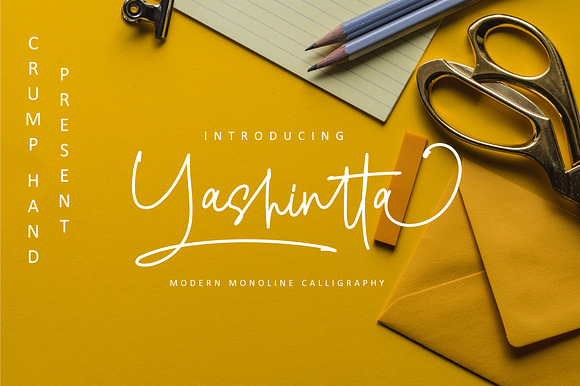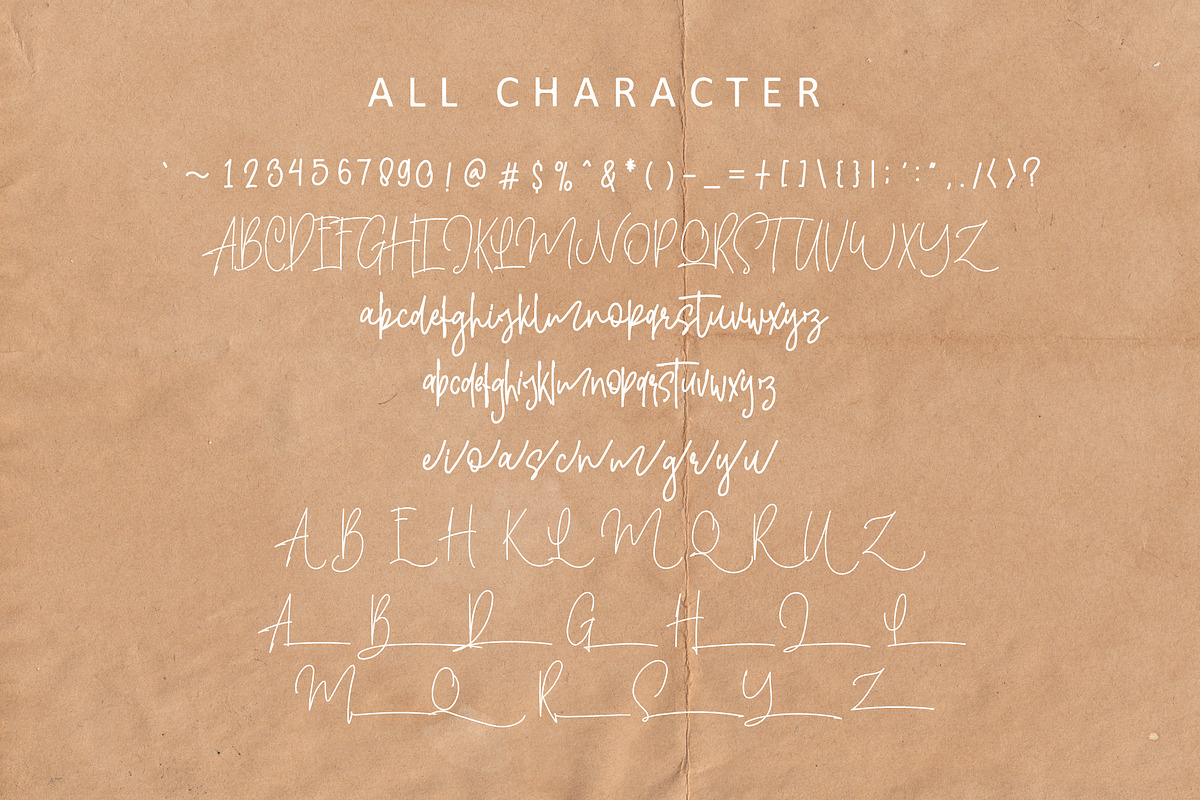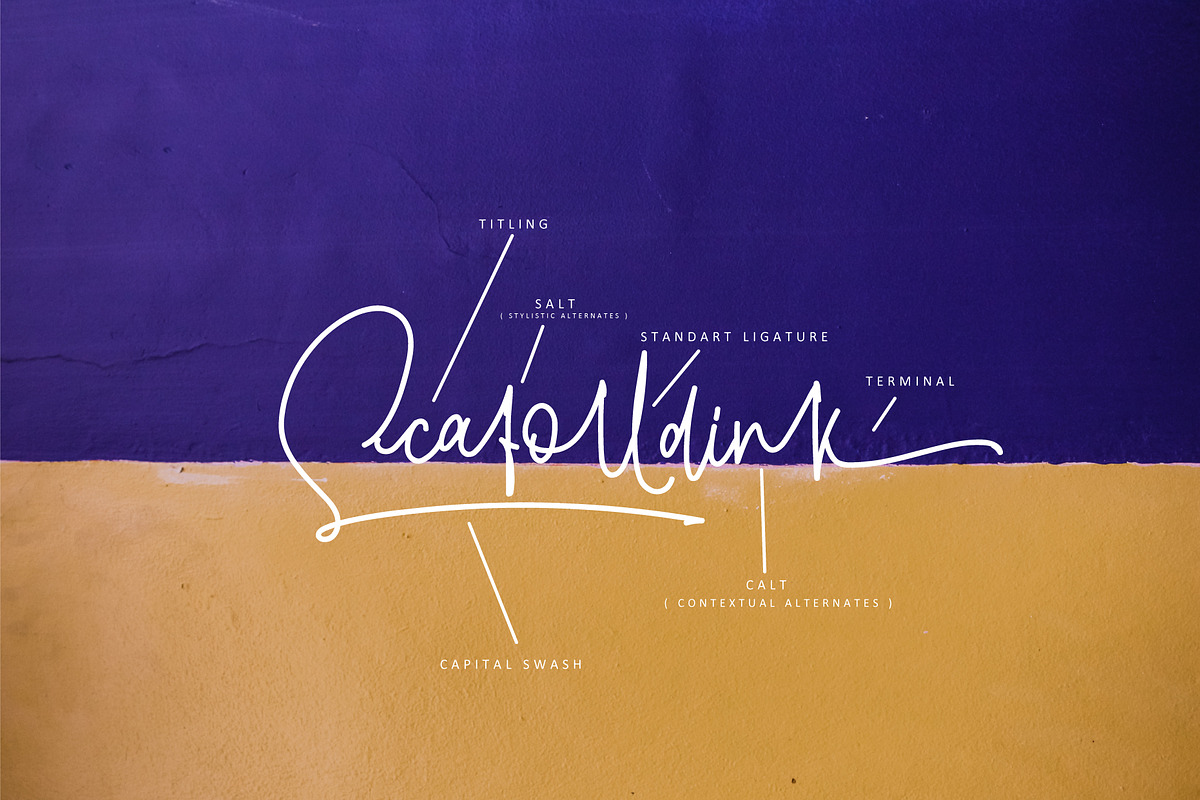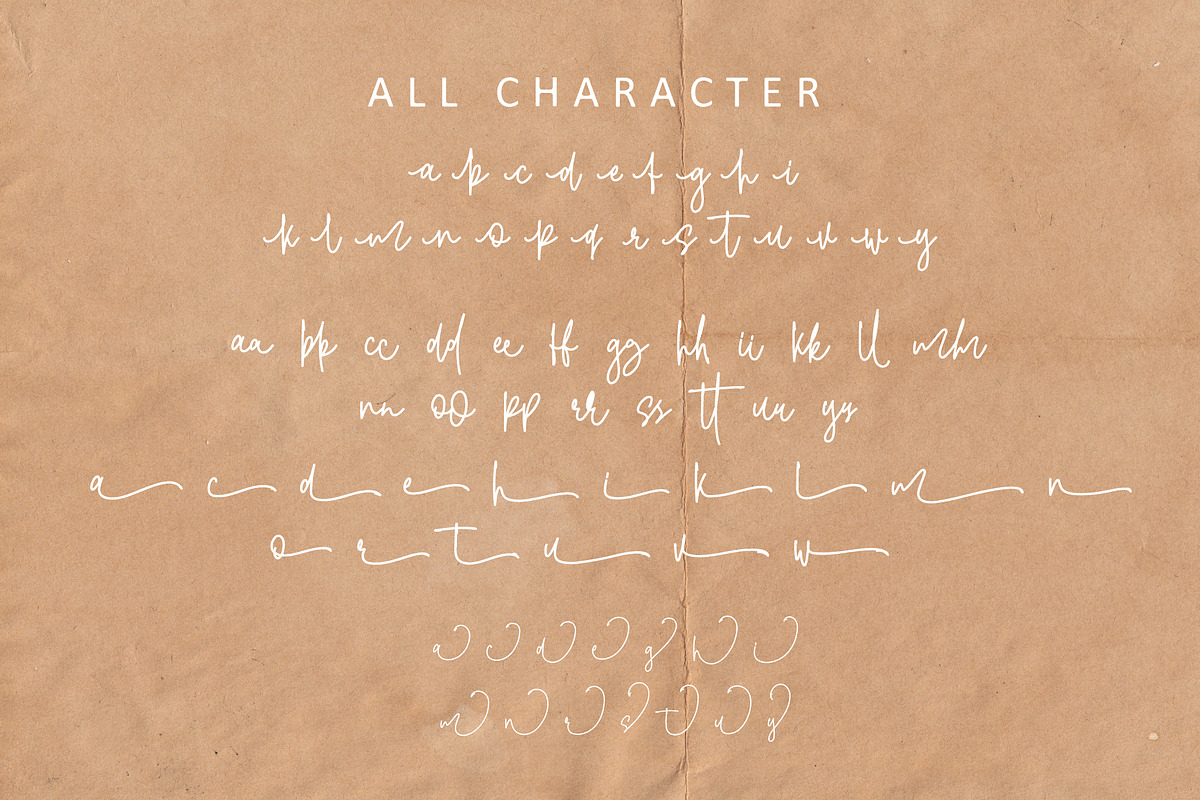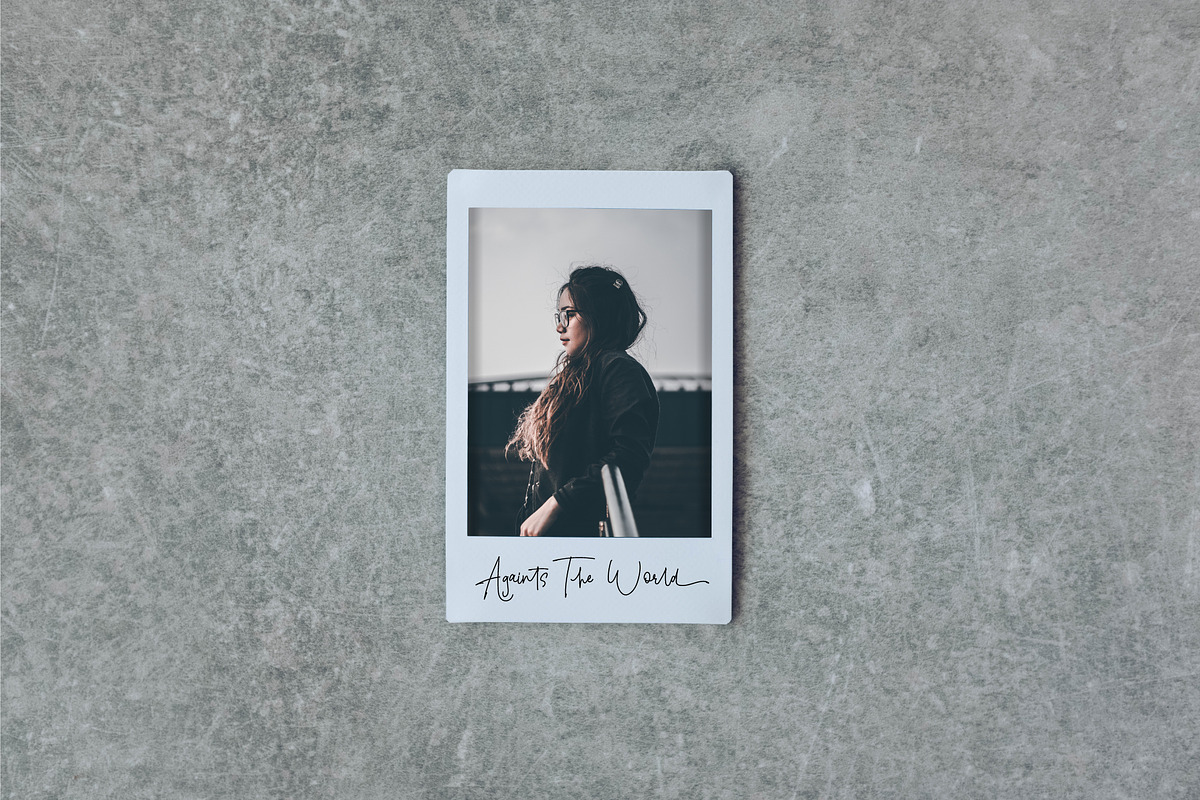
Yashintta Fonts Duo
Hello,Crump Hand finally released a new Font. after going through difficult times. and finally able to issue new products. can be called"yashintta"this font is a script and regular font.
Yashintta Numerals And Punctuation
Yashintta Stylistic Alternates
Yashintta Standart Ligatures
Yashintta Contextual Alternates
Yashintta Terminal Form
Yashintta ( Regular )Numerals And Punctuation
Yashintta ( Regular )Uppercase
Yashintta ( Regular )Lowercase